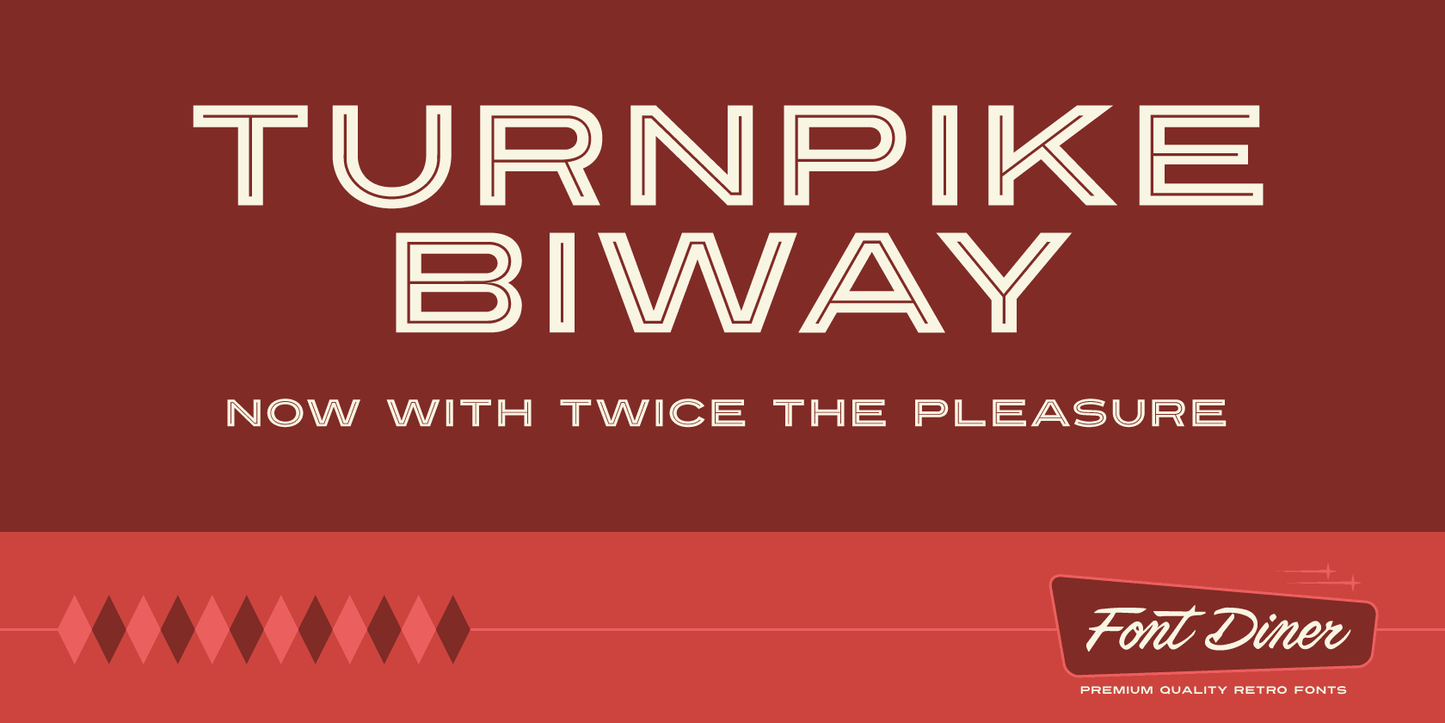
Double your pleasure with Turnpike Biway! You'll turn heads with this smooth speedometer inline sans serif font inspired by our popular Turnpike font.
This deluxe version gives you twice the thrill of the original with extra power and elegance.
Turnpike Biway Font
Turnpike Biway
Double your pleasure with Turnpike Biway! You'll turn heads with this smooth speedometer inline sans serif font inspired by our popular Turnpike font.
This deluxe version gives you twice the thrill of the original with extra power and elegance.